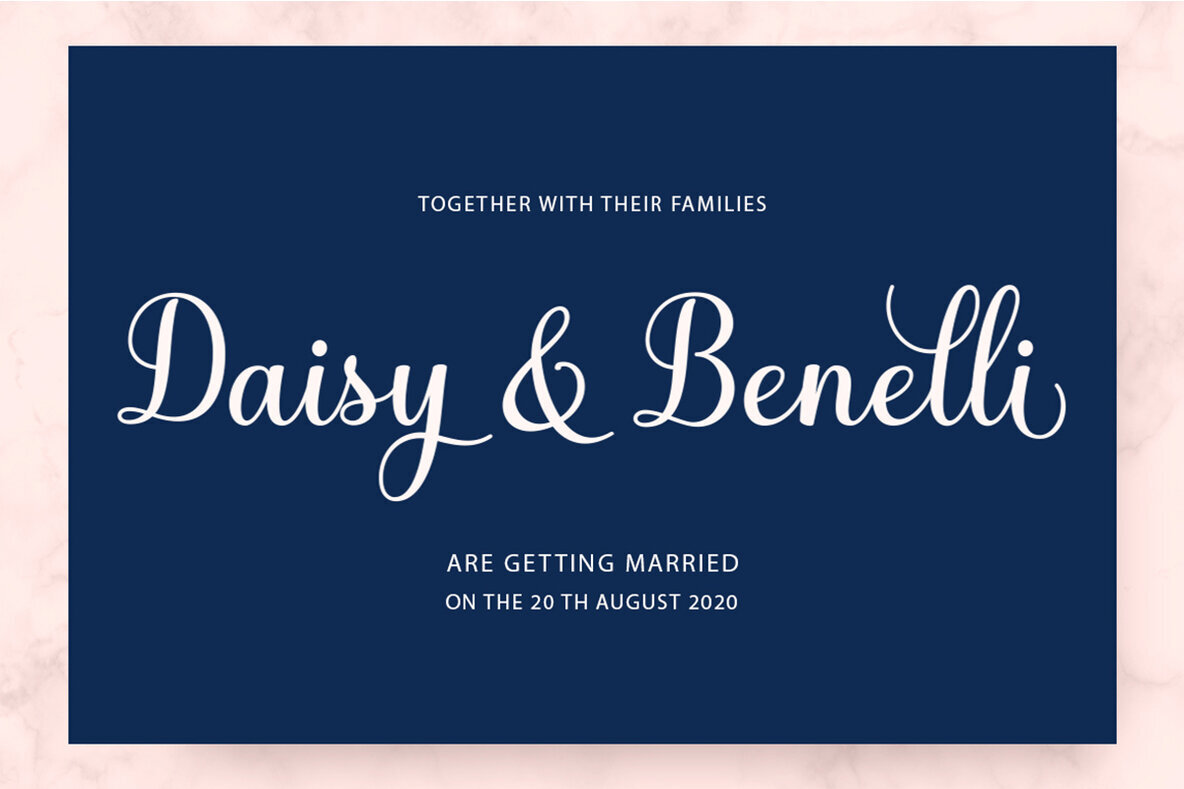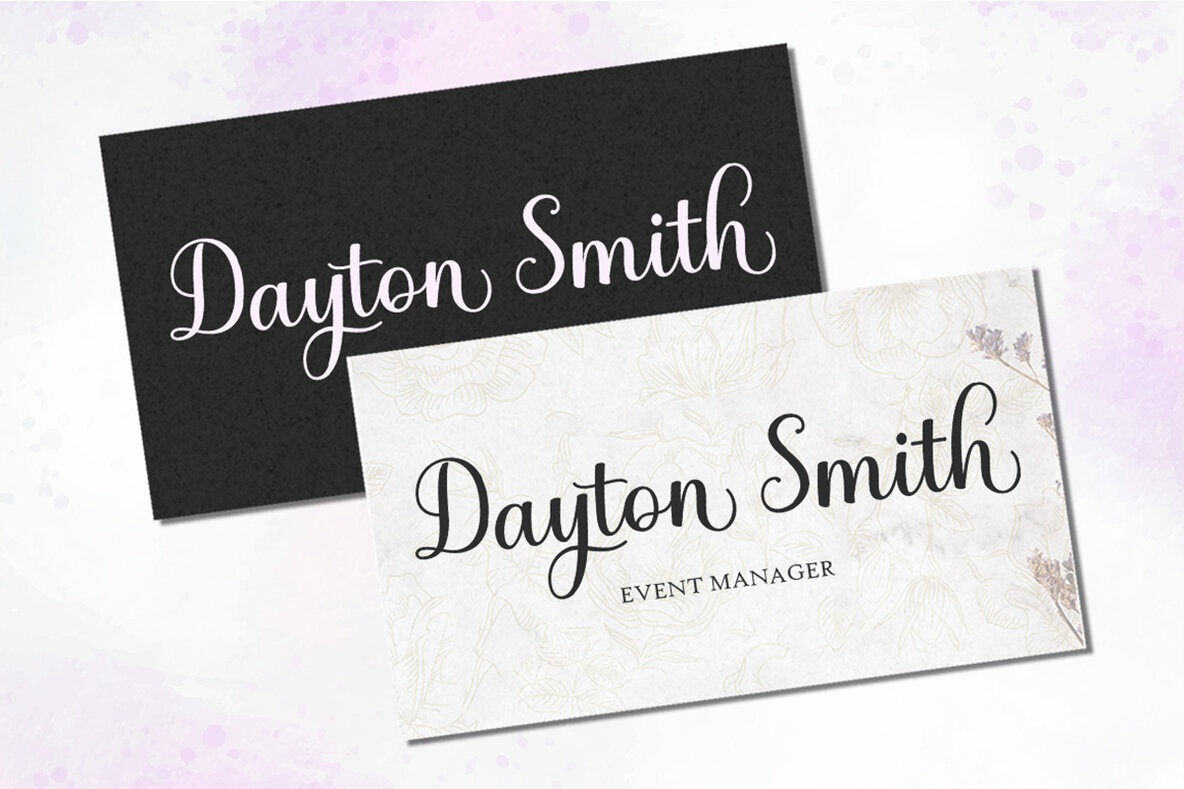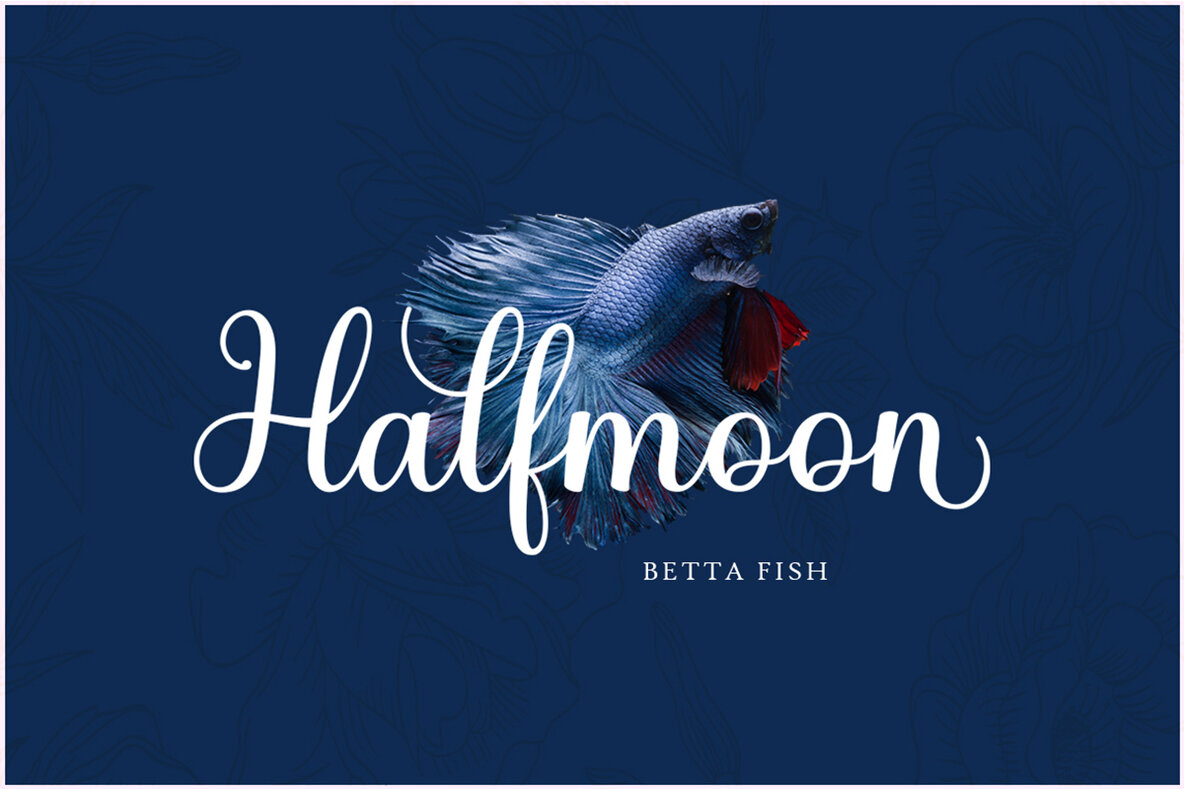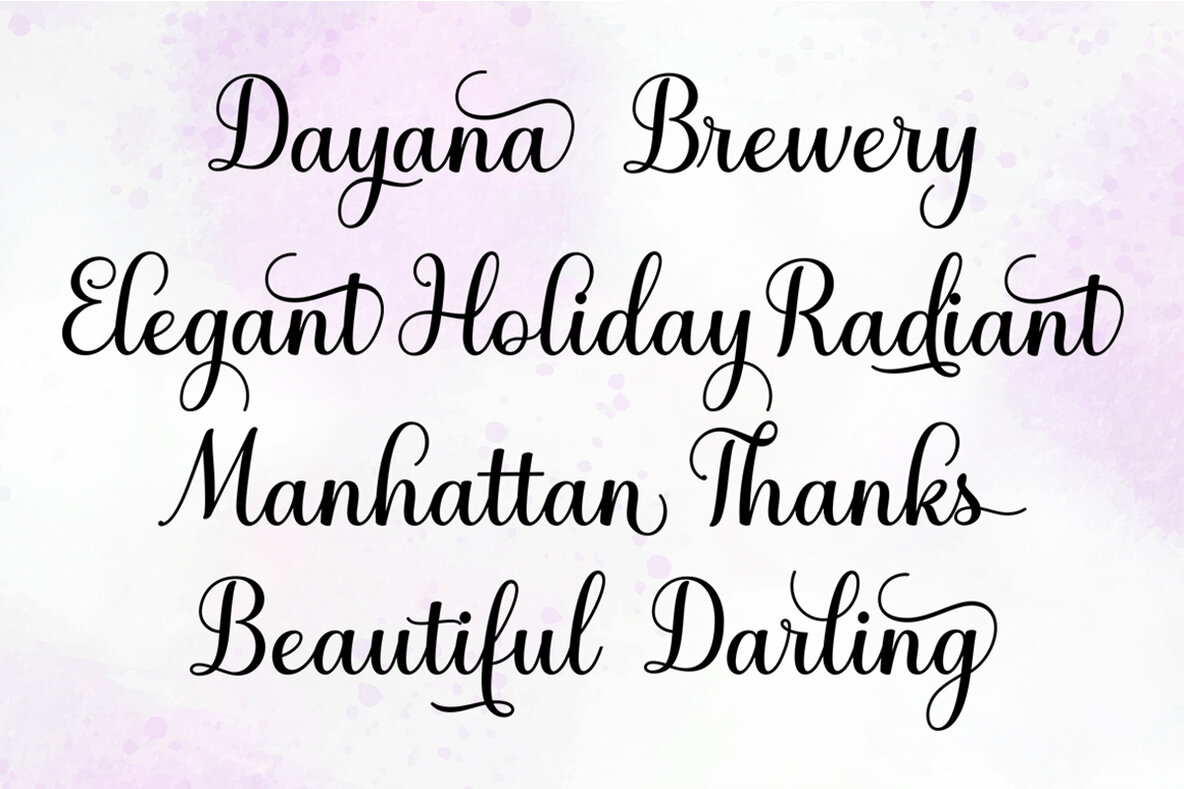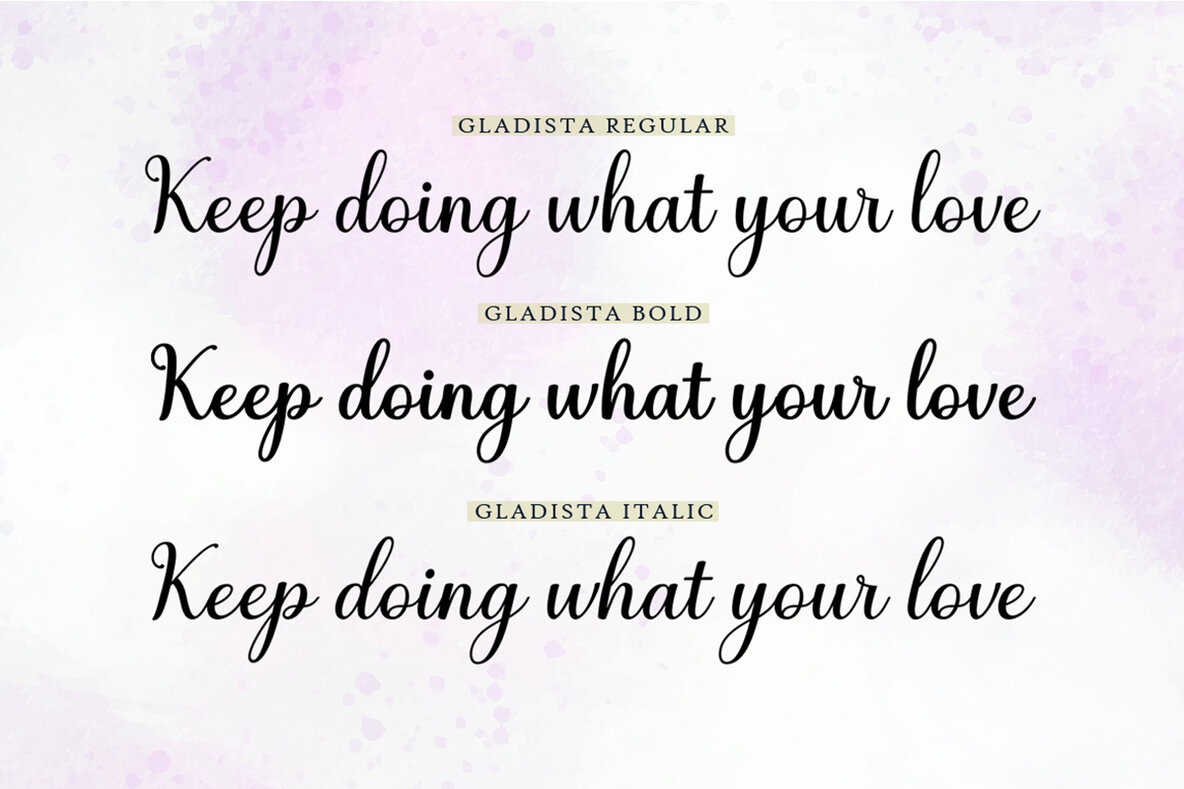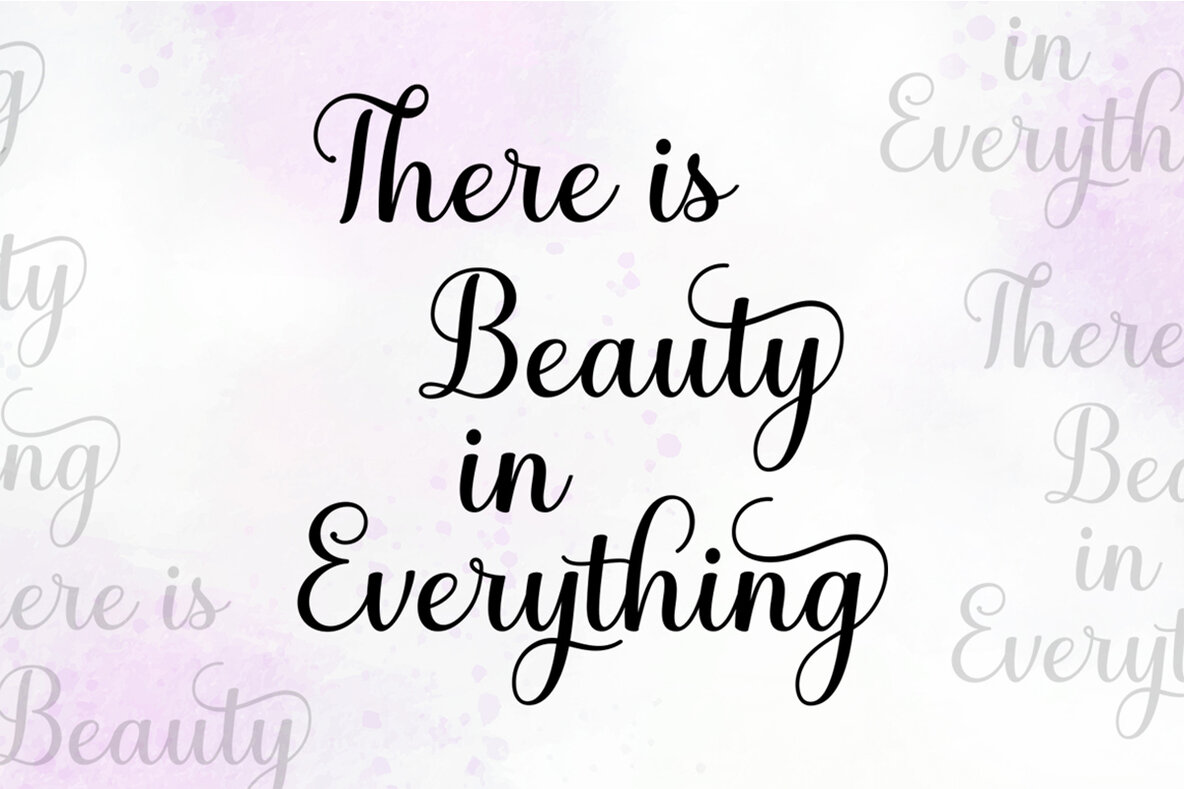
Gladista Font
The Gladista font artfully blends copperplate calligraphy with a refined hand-lettering style. With graceful alternate characters, it exudes a sense of elegance and allure. Aptly described as feminine, sensual, and glamorous, Gladista offers a smooth and highly legible typeface for a broad range of projects. Features: Gladista's classic charm makes it an ideal choice for formal pieces such as invitations, logos, fashion branding, stationery, and more. Whether used in romantic novels or wedding cards, its versatile appeal complements any project demanding a touch of sophistication.Gladista: Elegant Calligraphy Script with Charming Alternatives